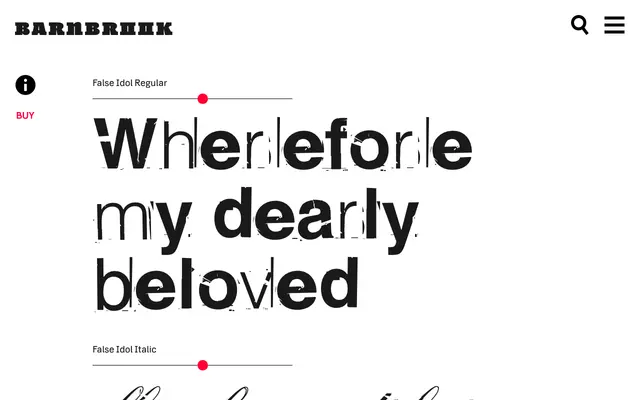
False Idol
A display face drawn from degraded 1970s rub-down lettering, pulling its character from pornographic magazines and home-made religious pamphlets in equal measure.
False Idol lifts its letterforms from the smudged, imperfect transfer lettering found in 1970s pornographic magazines and amateur religious leaflets, materials that shared the same aspirations to glamour and fell equally short. The result sits in an uncomfortable space between seedy and beautiful, a quality Barnbrook attribute to the naivety of the original sources. That awkward tension has made it one of the foundry's most enduring releases.
Derived from degraded rub-down lettering rather than formal type design tradition, giving it a raw, vernacular display character rooted in 1970s ephemera.